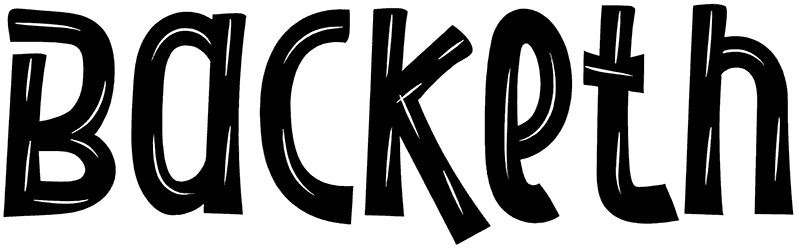
Backeth Font
Your novel playful design will become more engaging if you use cute lettering for its words, and this cartoon font is a nice offer to make it happen. The Backeth font’s characters are bold and realistic; that’s what will make your design look different. Numbers and most punctuation marks are not available, but this island font will remain a cool item for a summer camp flyer or so forth.